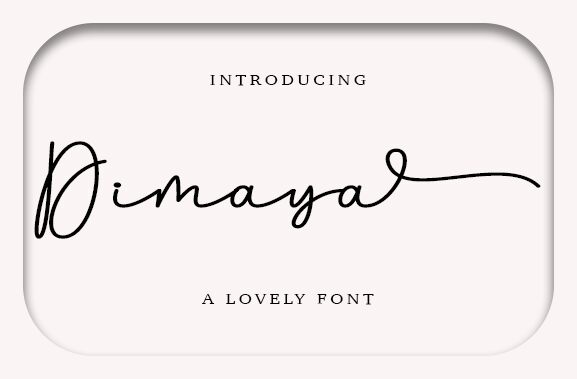
Dimaya
Dimaya is the perfect font for adding a personal touch to your next project. Designed by the talented Wahyu Setiyawan, this handwritten font exudes a playful and whimsical vibe that's perfect for everything from social media graphics to wedding invitations. With its light weight, Dimaya is versatile and can be used in a variety of projects, such as branding materials, greeting cards, and even product packaging. Give your designs an added flair with Dimaya's unique style that will make them stand out from the crowd.